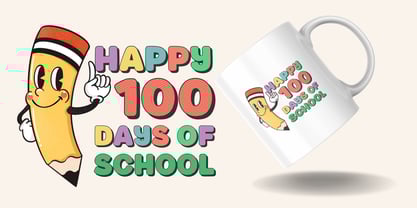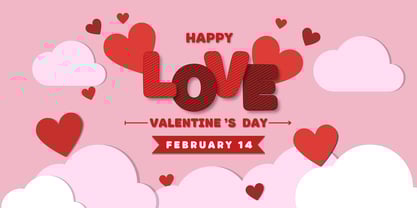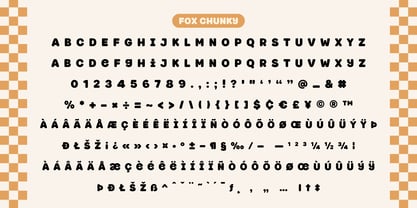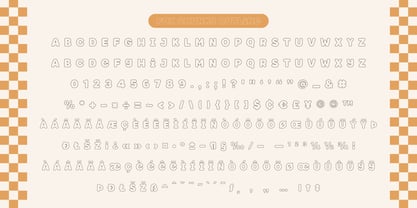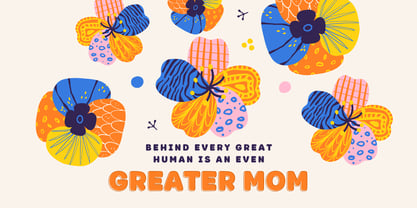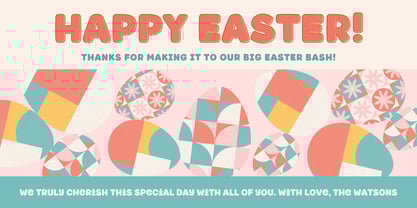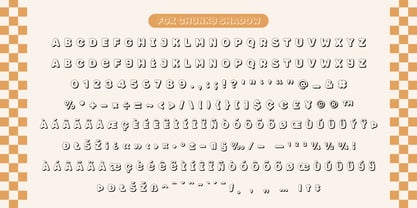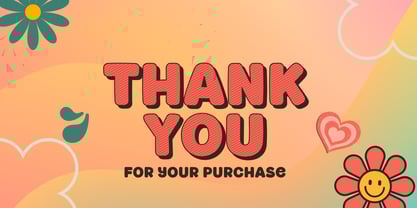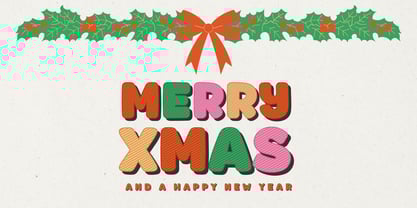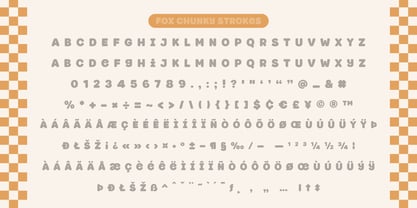
Fox Chunky
by Fox7
The Fox Chunky Font Family was designed by Rattana Rattanawan and published by Fox7. Fox Chunky contains 4 styles and family package options.
Fox Chunky is a fun and lively display font that brings a playful yet bold personality to your designs. With its thick, rounded letters and charming hand-drawn style, it’s perfect for eye-catching titles, posters, branding, and more.
This font comes in four unique styles:
RegularA solid, bold version for a strong presence.
StrokesA stylish hatched-line effect for a creative touch.
OutlineA sleek outlined version for a creative look.
ShadowA dimensional effect that adds depth and charm.
Whether you're working on children's designs, retro-themed projects, or fun branding, Fox Chunky is sure to make your text pop with personality and warmth!
Designers: Rattana Rattanawan
Publisher: Fox7
Foundry: Fox7
Design Owner: Fox7